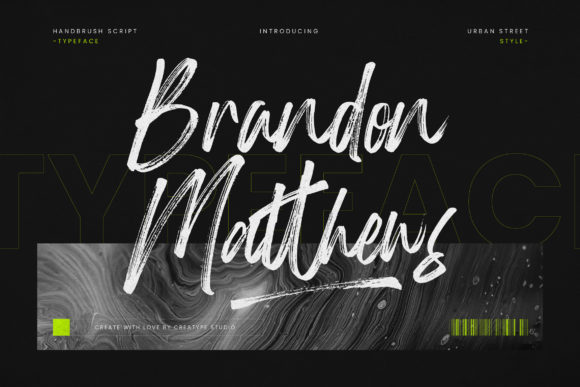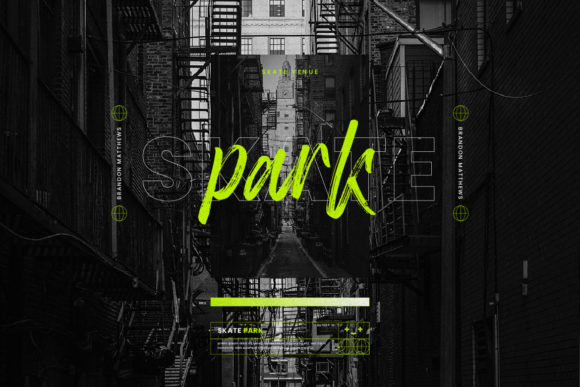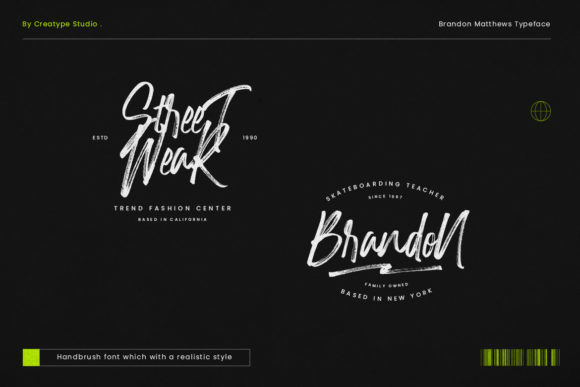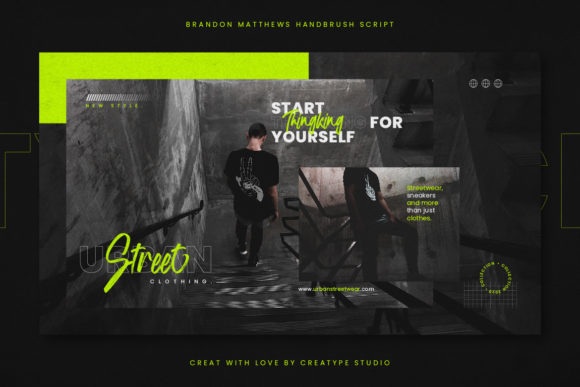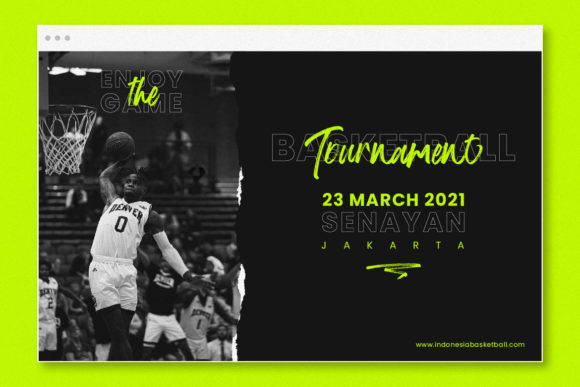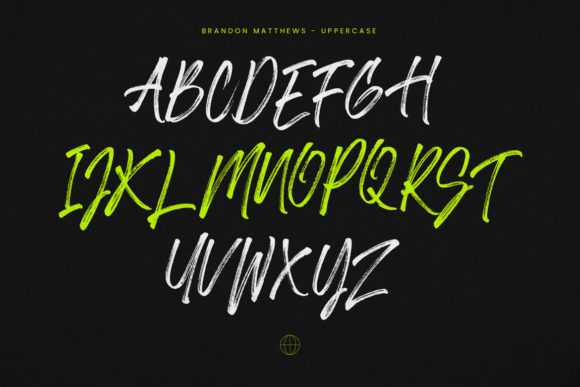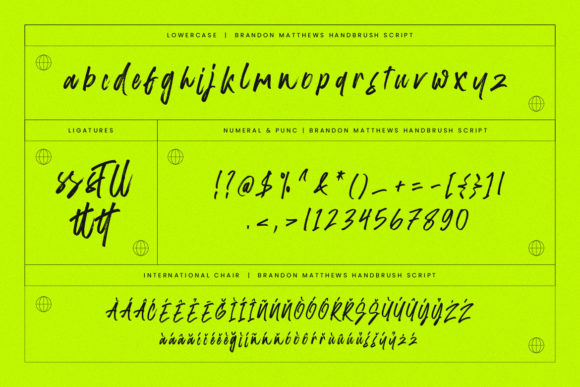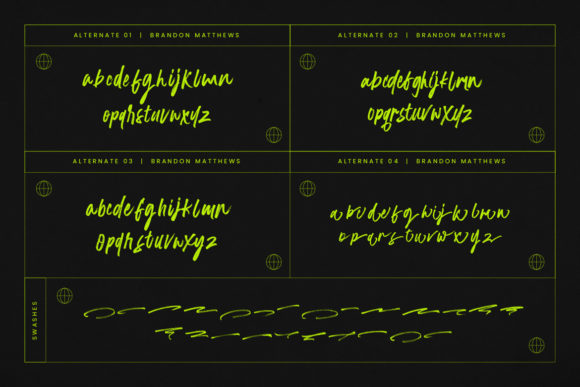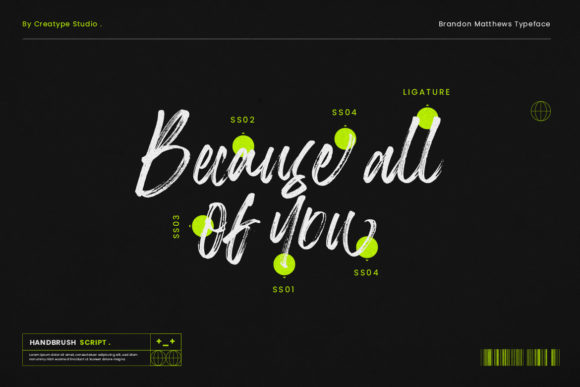
Brandon Matthews Font
About Brandon Matthews Font
Brandon Matthews is a lovely, cursive brushed script font, that looks natural and trendy. This font is perfect for branding projects, logos, wedding designs, social media posts, advertisements, product packaging, and any other projects that need customized taste. Brandon Matthews is PUA encoded which means you can access all of the glyphs and swashes with ease!